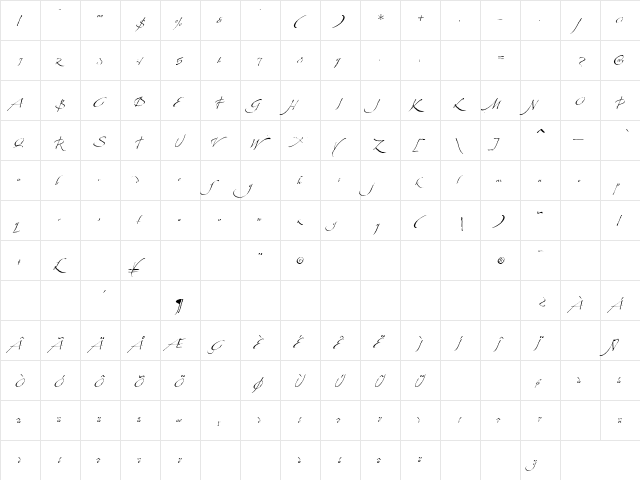
tsp machina 2 Regular
tsp machina 2 is a composed and adaptable typeface that performs quietly and consistently across a wide range of design contexts.